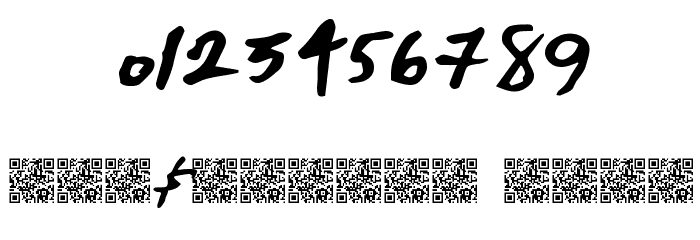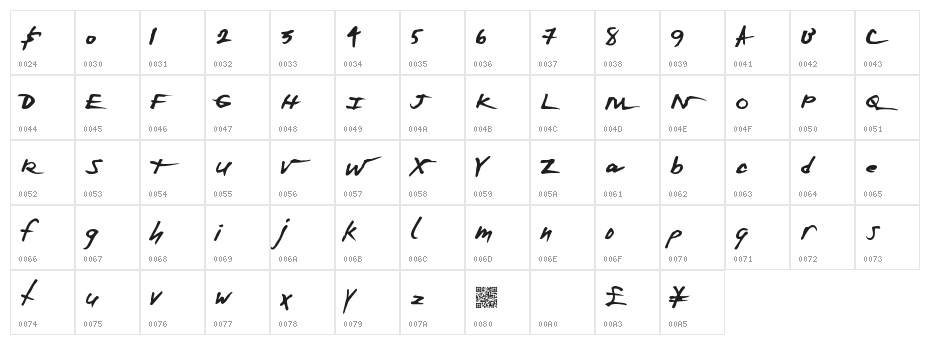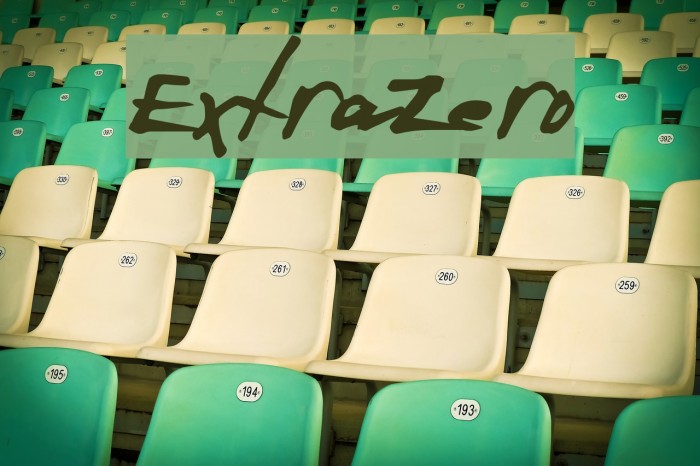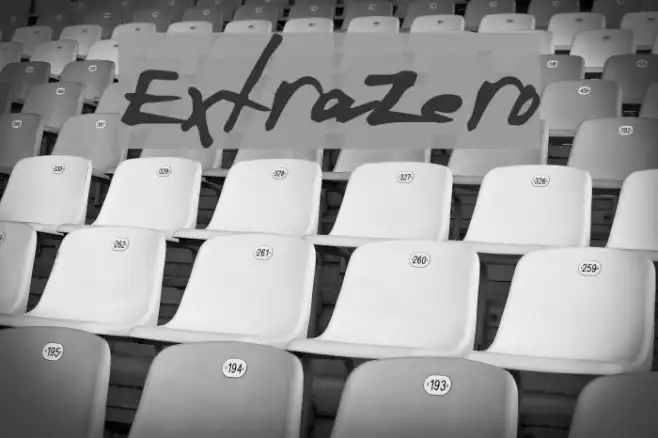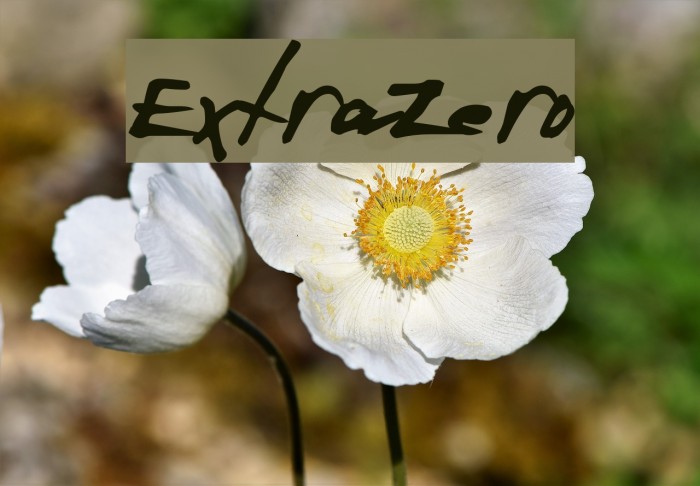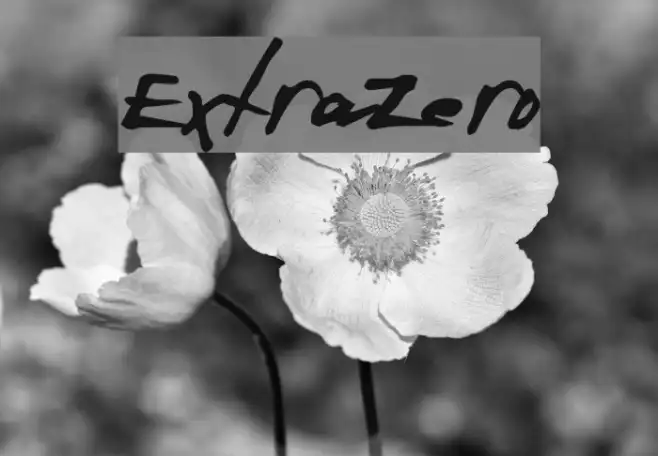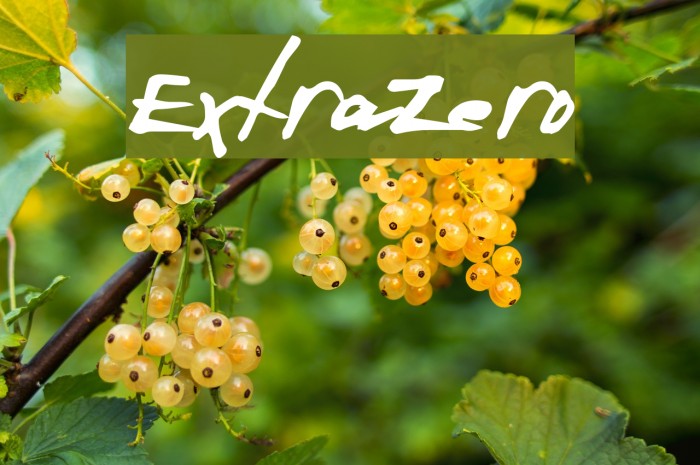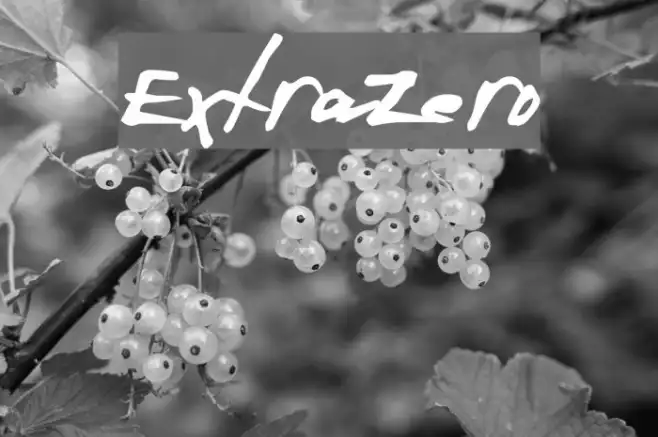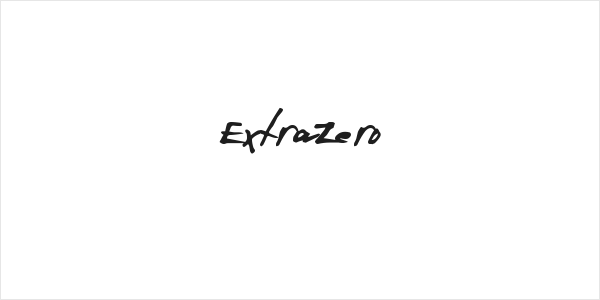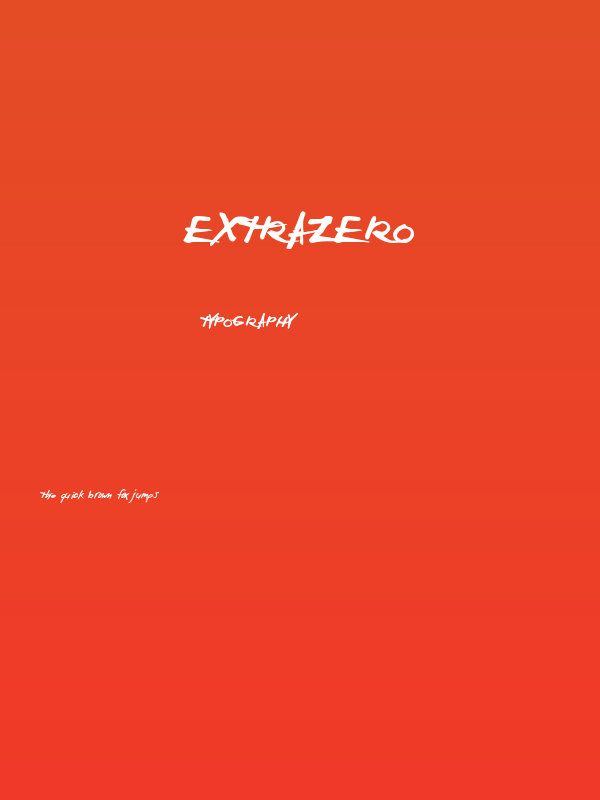
ExtraZero Font
ExtraZero Description
This font exhibits a dynamic and energetic style, characterized by its bold, handwritten appearance. The letters are crafted with a sense of movement, featuring irregular strokes and varying thicknesses that convey a sense of spontaneity and creativity. The uppercase letters are particularly striking, with exaggerated curves and angles that give them a distinctive flair. The lowercase letters maintain this lively aesthetic, though they are slightly more restrained, providing a nice balance. The numerals and special characters are consistent with the overall style, ensuring a cohesive look across all elements. This font is perfect for projects that require a personal touch or a bold statement.
| Use Case | Headlines, Logos, Artistic projects |
| Proposed Projects | Ideal for creative projects such as posters, album covers, branding, and artistic invitations. |